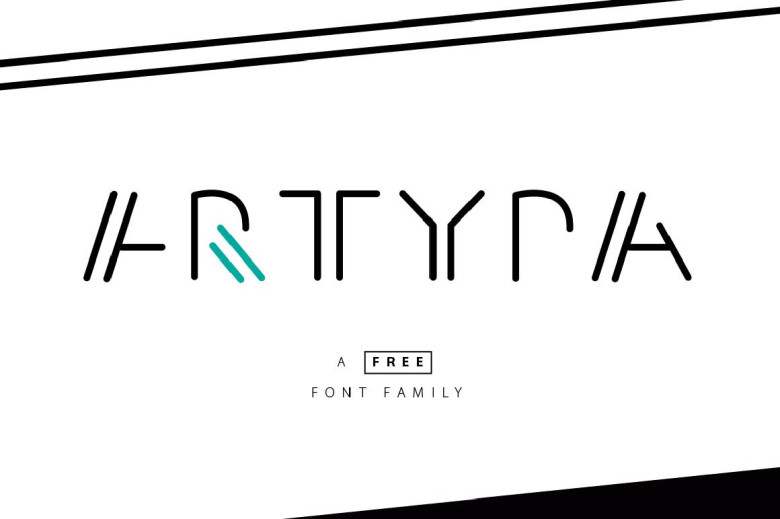
Artypa Font Family
Start of new projects with a free font, which is absolutely fine, I introduce to you Artypa Font Family! a new creative typography, and completely free. Artypa designed and shared by Phitradesign. Artypa is perfect for use in vintage design, travel branding and outdoor logos, industrial design etc.